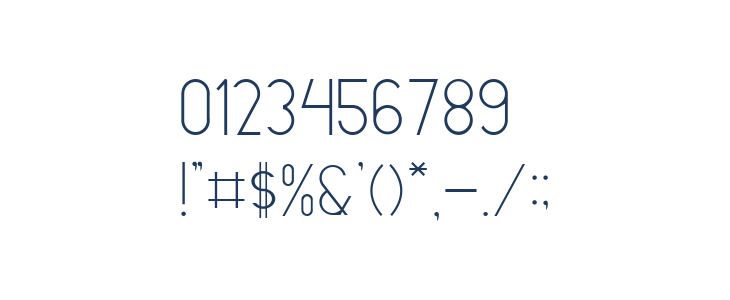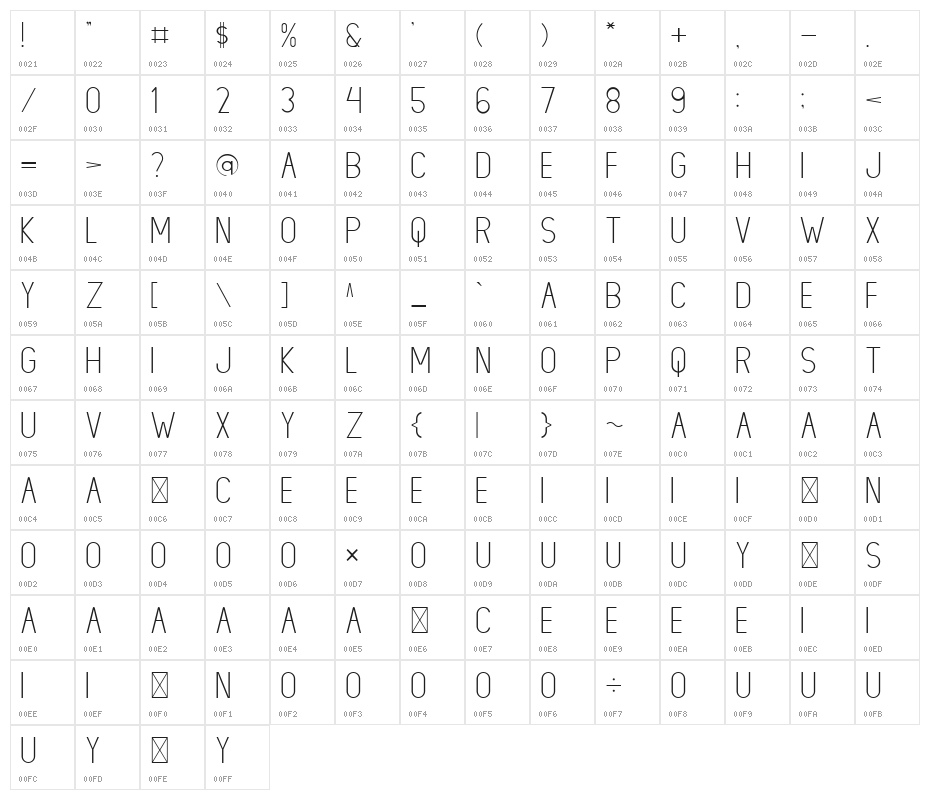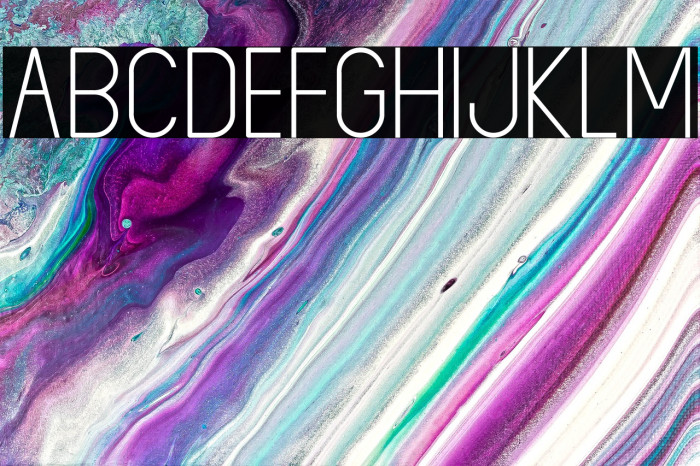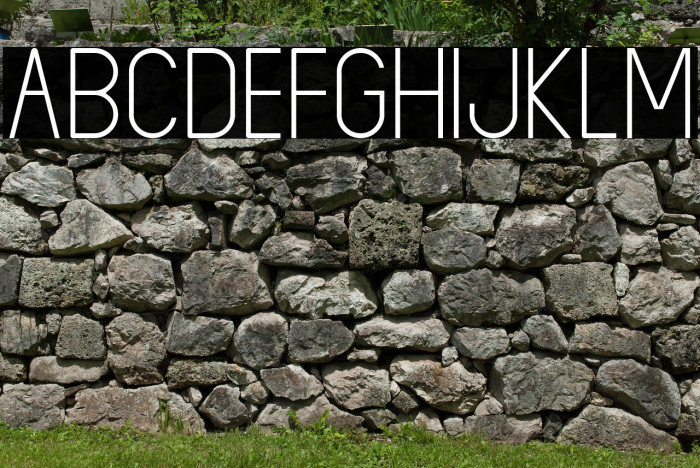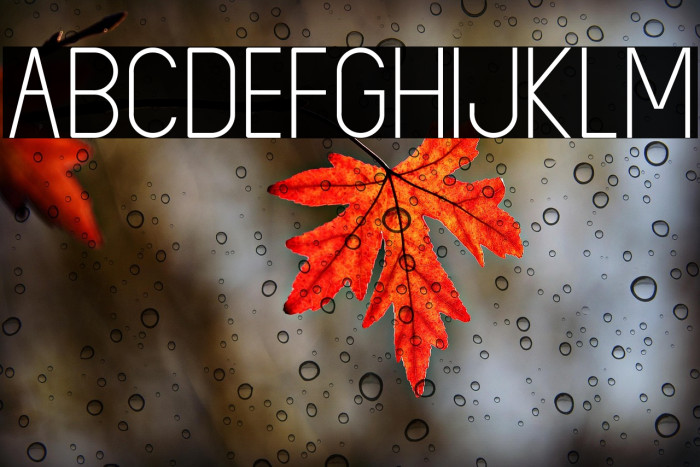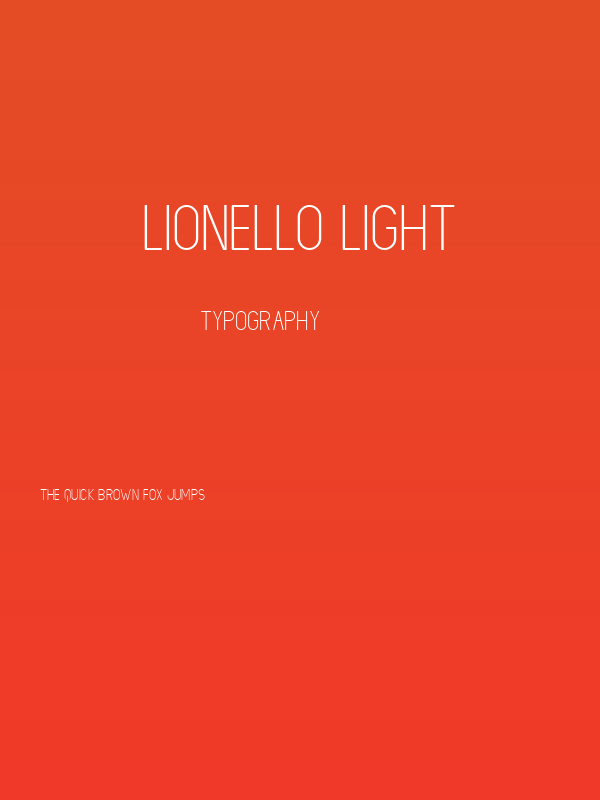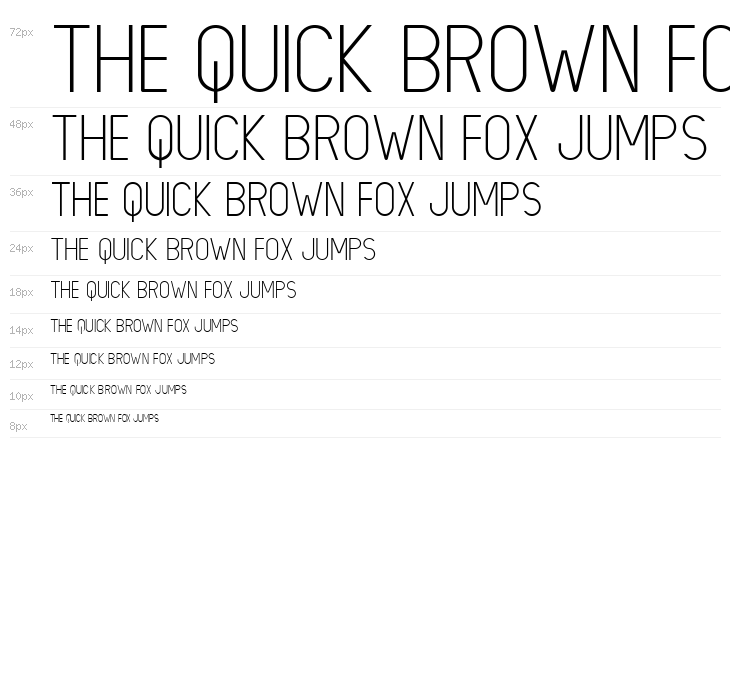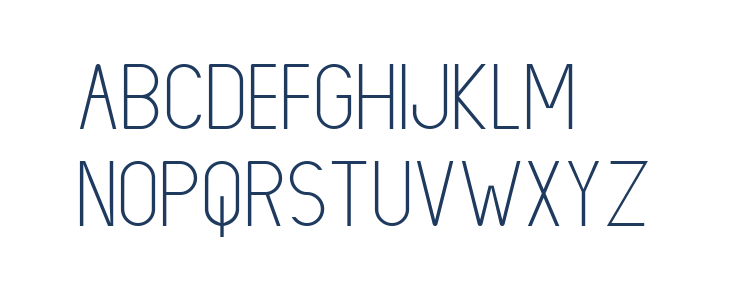
LIONELLO Light Font
LIONELLO Light Description
This font features a clean and modern sans-serif design with a geometric structure. The characters are tall and narrow, giving it a sleek and sophisticated appearance. The strokes are consistent in weight, contributing to a uniform and balanced look. The font's minimalistic style makes it versatile for various design applications, from digital to print media. Its clarity and simplicity ensure readability, while the geometric shapes add a touch of elegance and professionalism.
| Proposed Projects | Ideal for branding, corporate materials, web design, and editorial layouts. |